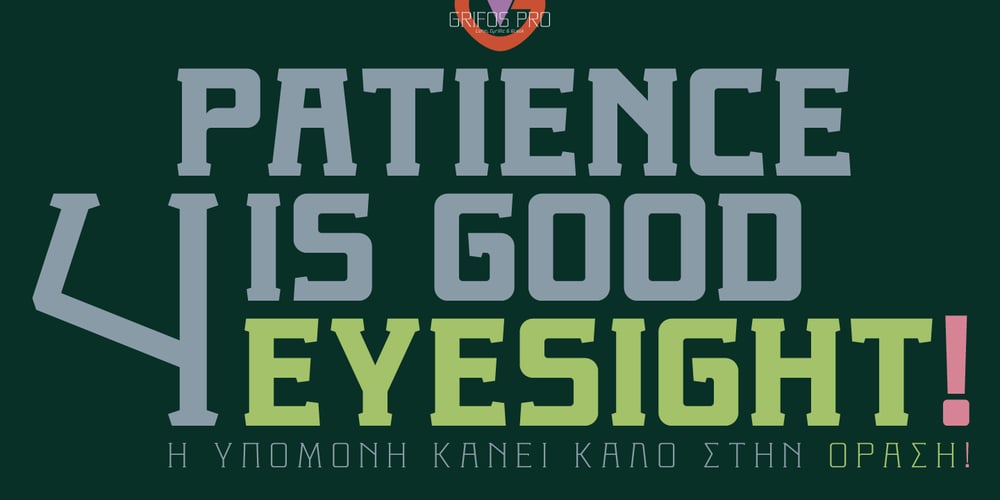
Grifos Pro Font Family was designed by Vangelis Dim. Gardikiotis and published by DBSV. Grifos Pro contains 10 styles and family package options. About family “Grifos Pro”The word “Grifos” is a mix of the phrase “enigma”, in the ancients and originally meant “net”, in a metaphorical sense and of the phrase “ifos” the way of the plot of words and phrases, the individual way of expression in the written and spoken language, the artistic expression in literature and in any other art, the style, the mental mood imprinted in the facial features. A Grifos is a kind of enigma in which the word or phrase is represented by a shape, number or picture. A puzzle is a mental problem that requires thinking to solve. There are various types of Grifos, such as logic, calculation, brain teasers, quizzes, etc. They often require us to think outside the box. Metaphorically we use it to describe that which is surrounded by mystery, which is difficult to explain or interpret logically or based on existing evidence. This series is composed and includes ten fonts with 631 glyphs each, with true italics, and supports of course: Latin, Greek & Cyrillic.